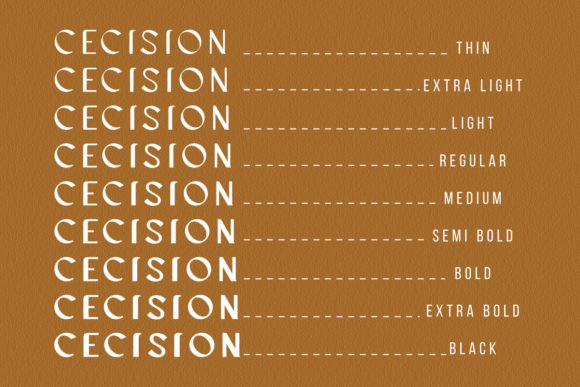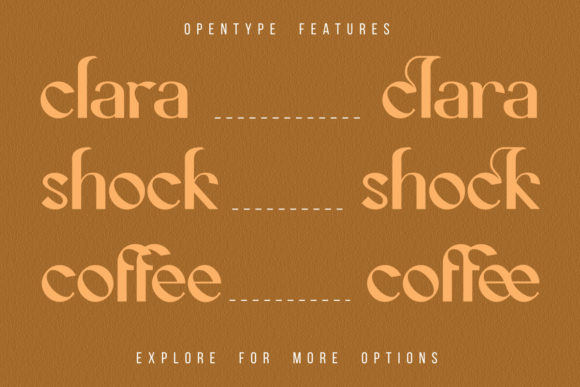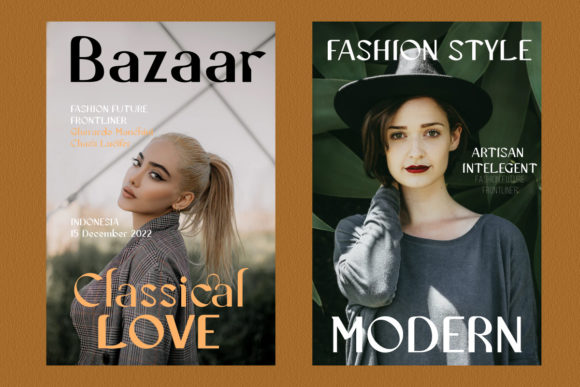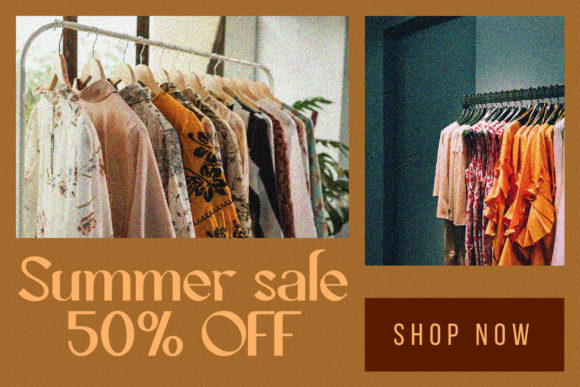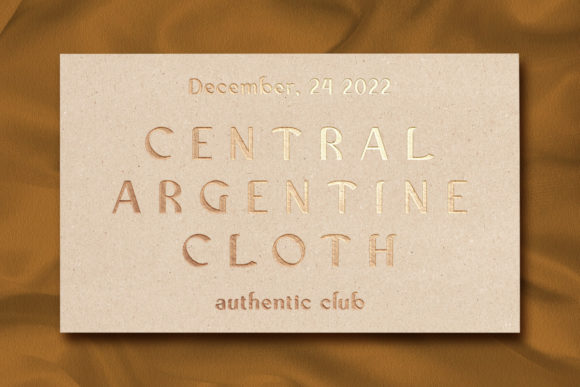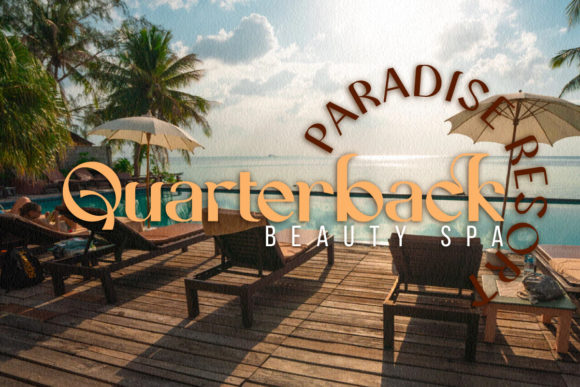
Cecision Font: Elevate Your Crafting Ideas with Modern Elegance
In the world of crafting, design, and branding, the right font can make all the difference. Imagine having the power to transform your creations with a single, stylish element. That’s where the Cecision Font comes into play. This modern and fashionable serif font is designed to elevate a wide range of crafting ideas, from cards and branding to labels and much more. In this article, we’ll dive deep into what makes Cecision a must-have for designers and crafters alike.
The Essence of Cecision Font
Cecision is not just another font; it’s an experience. Its modern serif design brings a touch of elegance and sophistication to any project. Whether you’re working on a greeting card, a brand logo, or product labels, Cecision provides the perfect blend of contemporary flair and classic charm. This versatility makes it an indispensable tool in the arsenal of any creative professional or hobbyist.
Key Features of Cecision Font
- Modern Serif Design: Cecision boasts a sleek and modern serif design that instantly adds a level of sophistication to your projects.
- Versatility: From digital applications to print materials, Cecision adapts seamlessly, ensuring your designs look great everywhere.
- Elegance: Its elegant strokes and beautiful letterforms make it perfect for projects that require a touch of luxury or refinement.
- User-Friendly: Designed with usability in mind, Cecision is easy to read and works well in both headings and body text.
Applications of Cecision Font
The possibilities with Cecision are endless. Here are some popular applications where Cecision can truly shine:
- Stationery and Cards: Add a personal touch to your invitations, greeting cards, and thank you notes with Cecision’s elegant lettering.
- Branding and Logos: Create a lasting impression with a logo that exudes modernity and professionalism.
- Labels and Packaging: Elevate your product labels or packaging design with a font that communicates quality and style.
- Digital Content: Enhance your website, blog, or social media graphics with Cecision’s contemporary aesthetic.
Why Choose Cecision Font?
In a sea of fonts, Cecision stands out for several reasons:
- Unique yet Legible: It offers a unique design that doesn’t compromise on readability.
- Time-Saving: With Cecision, you can achieve professional-looking results in less time, allowing you to focus on other creative aspects.
- Cross-Platform Compatibility: Cecision works well across various platforms and devices, ensuring consistency in your designs.
How to Get the Most Out of Cecision Font
To truly leverage the potential of Cecision, experiment with different sizes, colors, and combinations with other design elements. Don’t be afraid to push the boundaries of what’s possible. Pair Cecision with complementary fonts for added contrast, or use it as a standalone element to draw attention. The key is to let your creativity flow and see how Cecision can transform your ideas into stunning visual realities.
Cecision Font is more than just a typeface; it’s a creative catalyst that can revolutionize the way you approach your crafting and design projects. Its modern elegance, versatility, and ease of use make it an invaluable resource for anyone looking to add a touch of sophistication to their work. Whether you’re a professional designer or a passionate crafter, Cecision invites you to explore new creative horizons. So why wait? Add Cecision confidently to your favorite creations and be amazed by the outcome.
Discover the transformative power of Cecision Font today and elevate your designs to new heights of elegance and style.